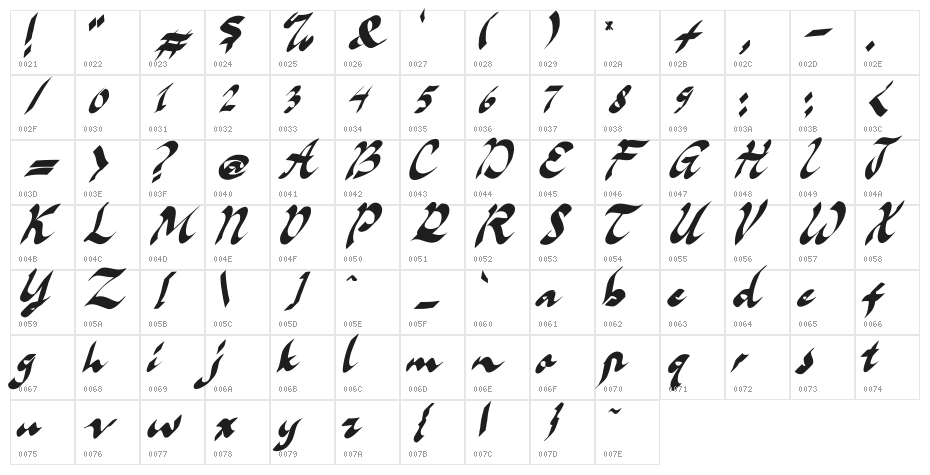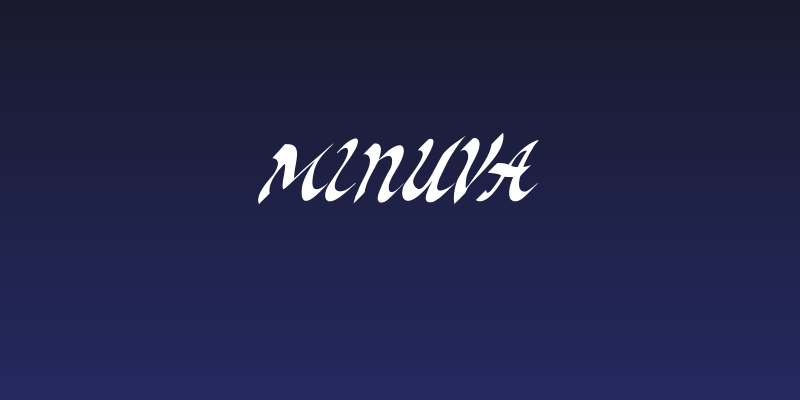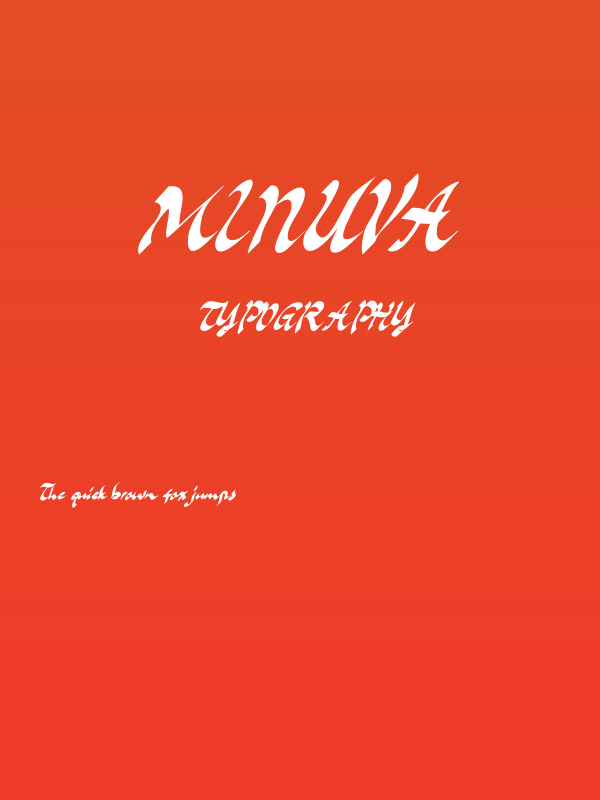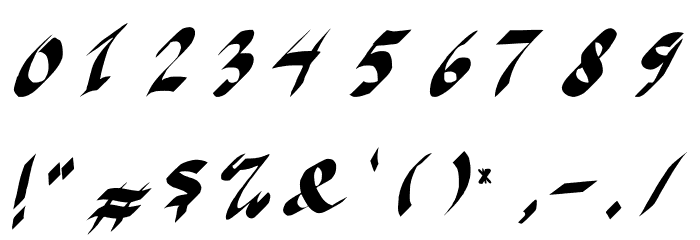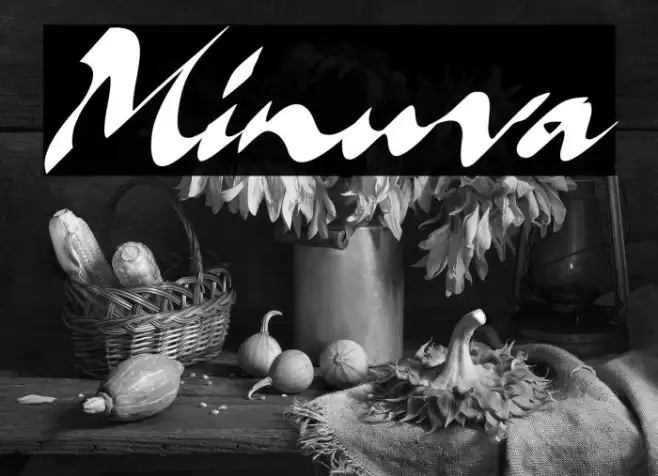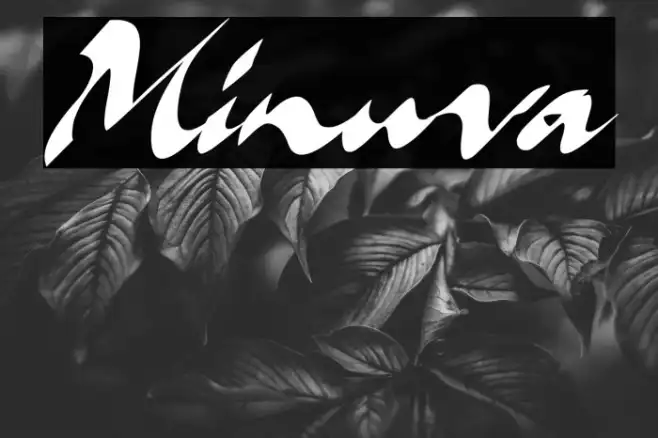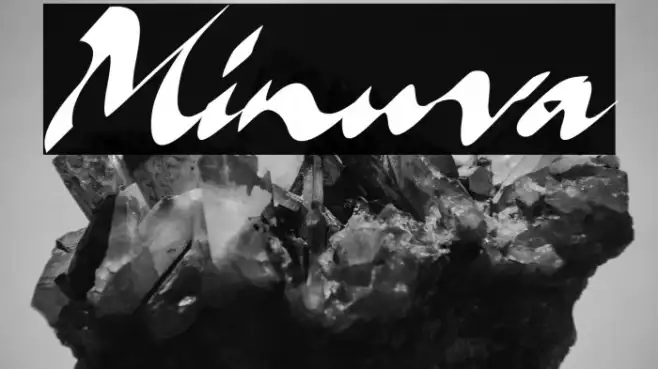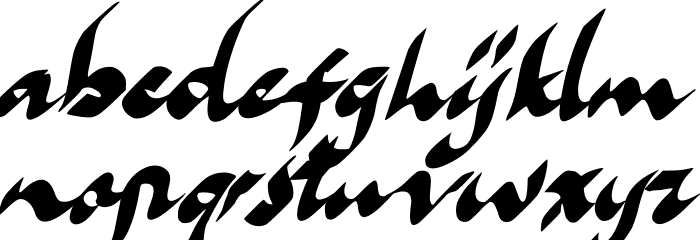
Minuva Font
Minuva Description
This font is a bold and expressive script style that features dramatic, sweeping curves and sharp, angular strokes. The characters are highly stylized, with a sense of movement and flair that suggests a calligraphic influence. The uppercase letters are particularly striking, with exaggerated flourishes and a dynamic presence. The lowercase letters maintain the same energetic style, offering a cohesive look across the alphabet. Numbers and special characters are designed with the same attention to detail, ensuring consistency throughout. This font is ideal for creating impactful designs that require a touch of elegance and drama.